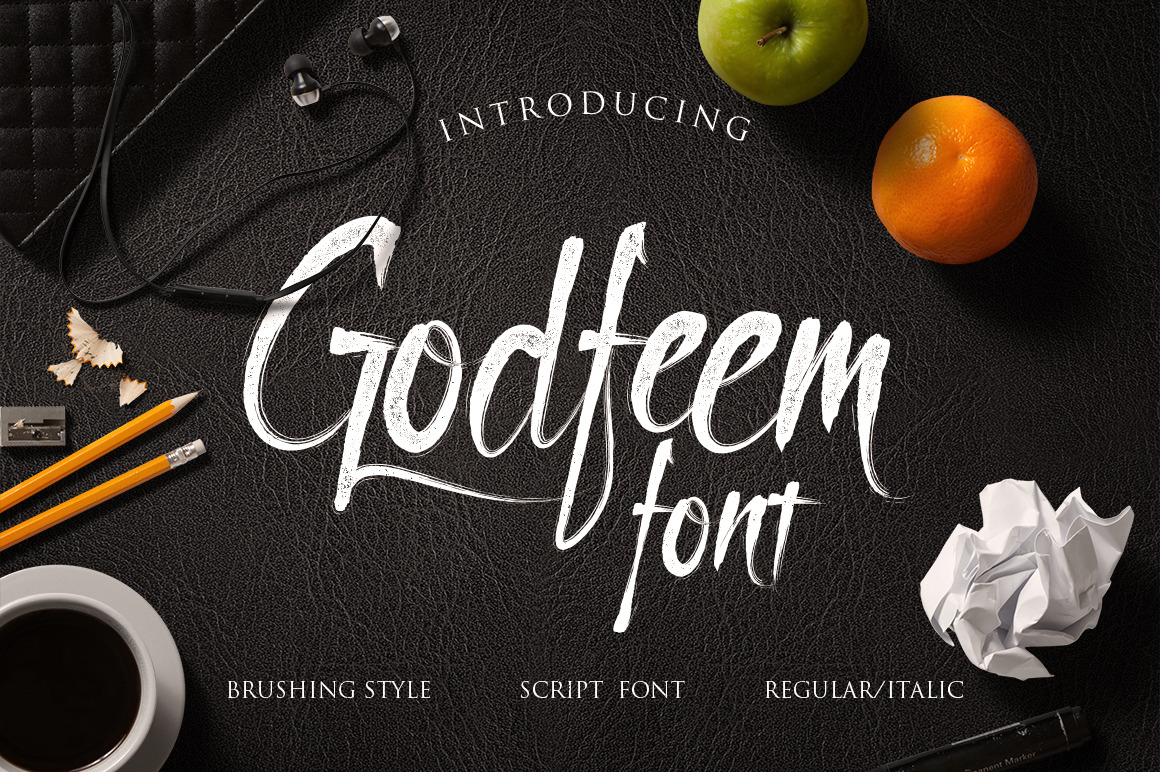
Godfeem Font
Godfeem is a font that uses a brush handwriting style. Character is very unique and fun, suitable for a badges, foods menu design, letter head, quote text etc. Small font size (ex : 12pt letter) still look very good and readable. Bigger size of this font will show great detail of this brush character. This font contain two formats such as OTF ( Open Type ) and TTF (True Type). Not only that, you also get italic character of this font beside regular character with in this font package.
For those who love to create project with fun concept design, Godfeem handwriting brush style font is suitable for your font collection. You will also get a 13 swash brush include in ornament category.